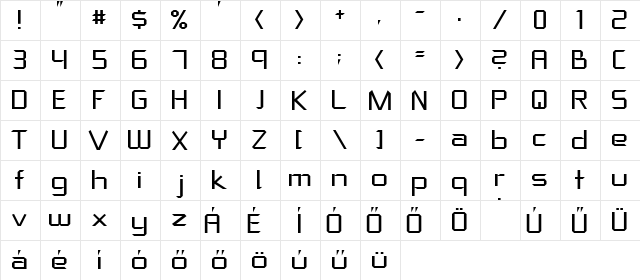
Crystal clear Regular
Design Context for Crystal clear Typeface
Crystal clear offers clean, dependable letterforms without strong stylistic allegiance, making it a practical choice for designers who need flexibility.